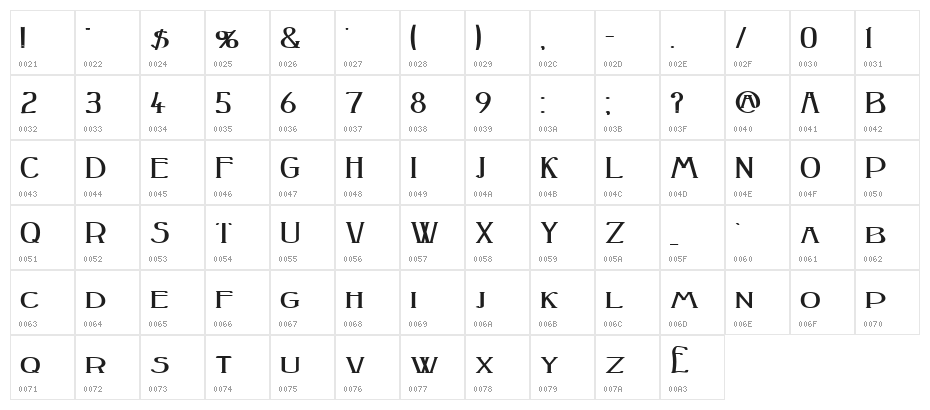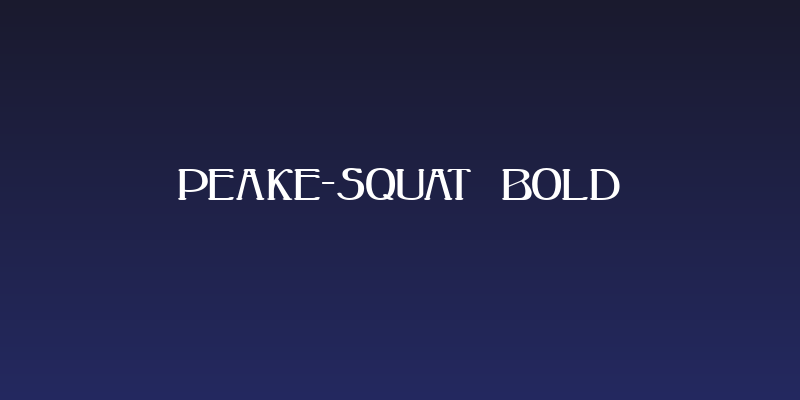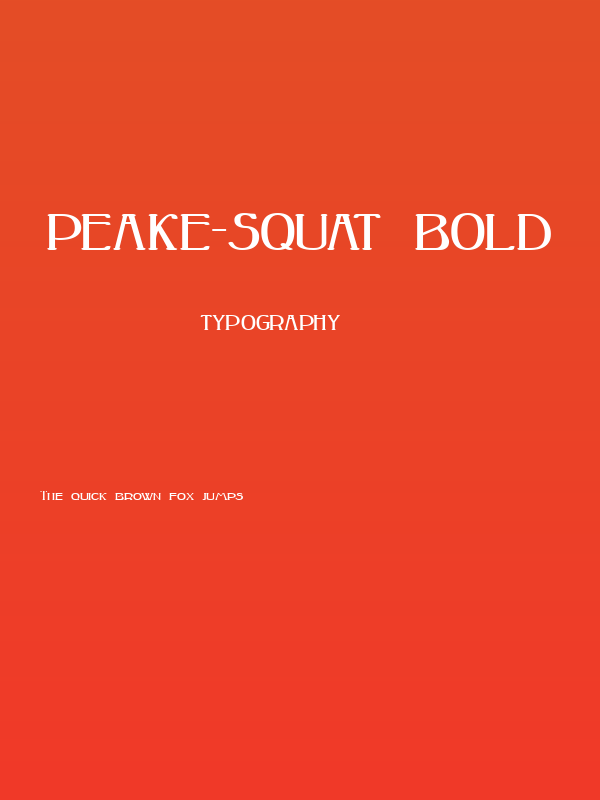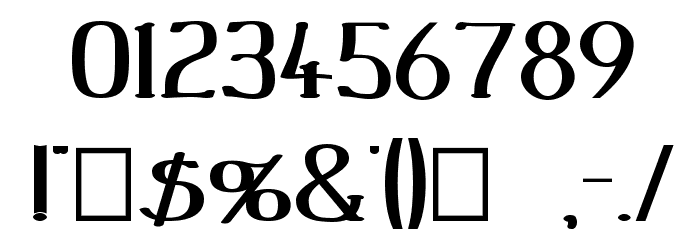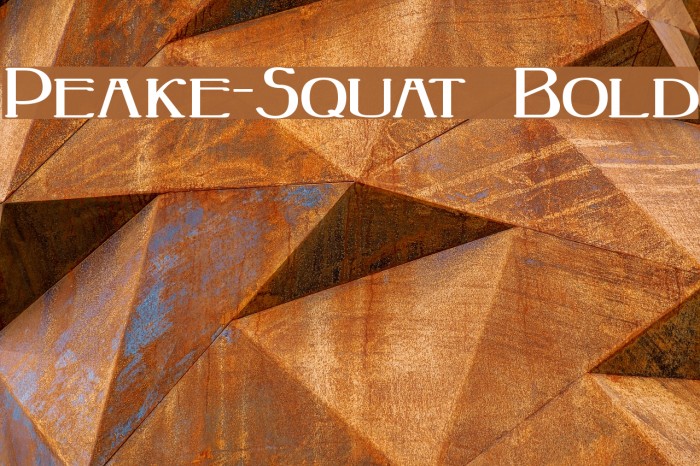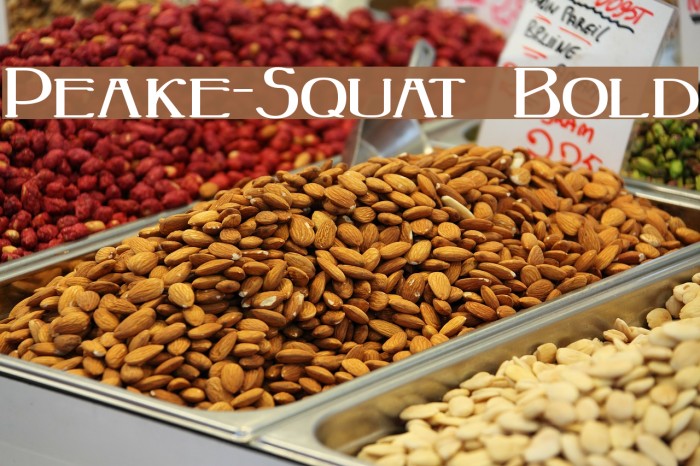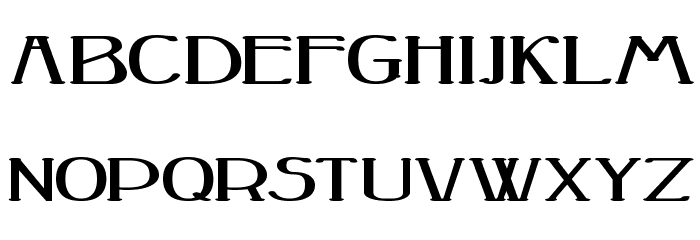
Peake-Squat Bold Font
Peake-Squat Bold Description
This font features a bold and distinctive style with a modern twist. The uppercase letters are characterized by their unique geometric shapes and sharp angles, giving them a futuristic appearance. The lowercase letters maintain a consistent style, complementing the uppercase with their rounded forms and clean lines. The numerals are bold and clear, ensuring readability. Special characters are designed with the same attention to detail, making them stand out. Overall, this font combines modern aesthetics with a bold presence, making it suitable for various creative applications.